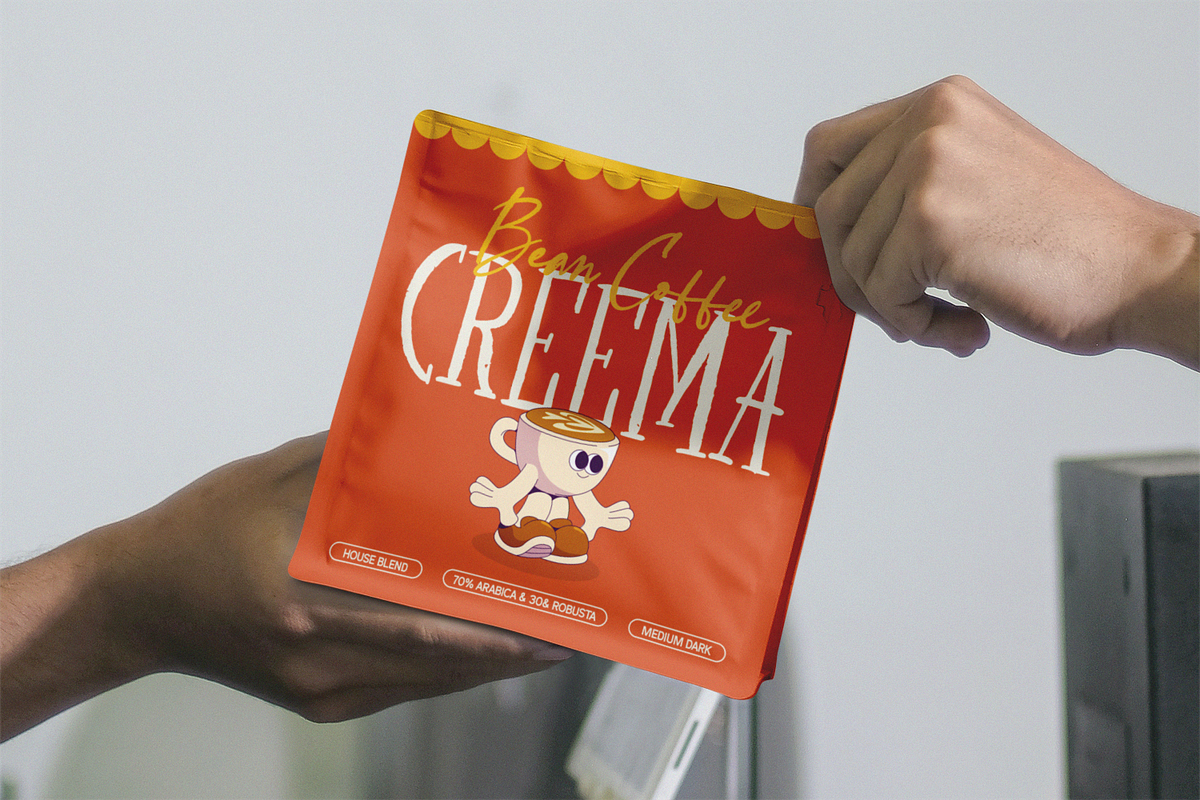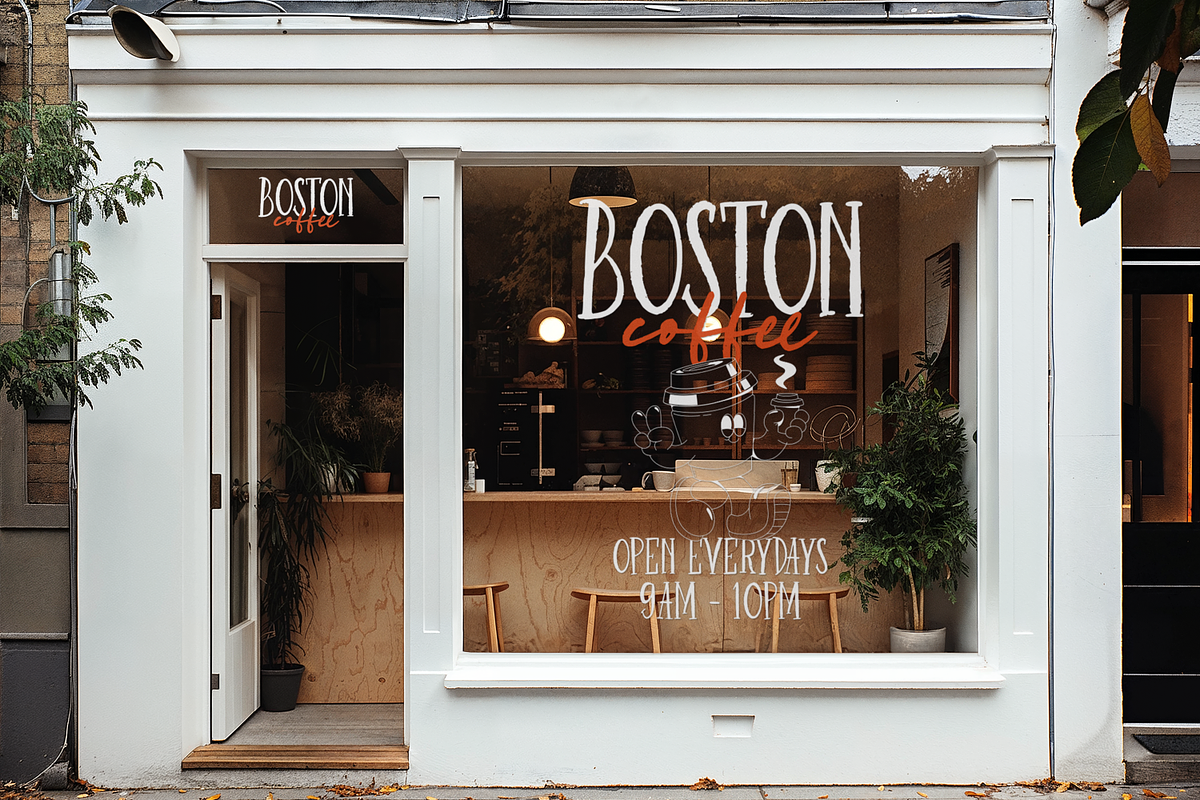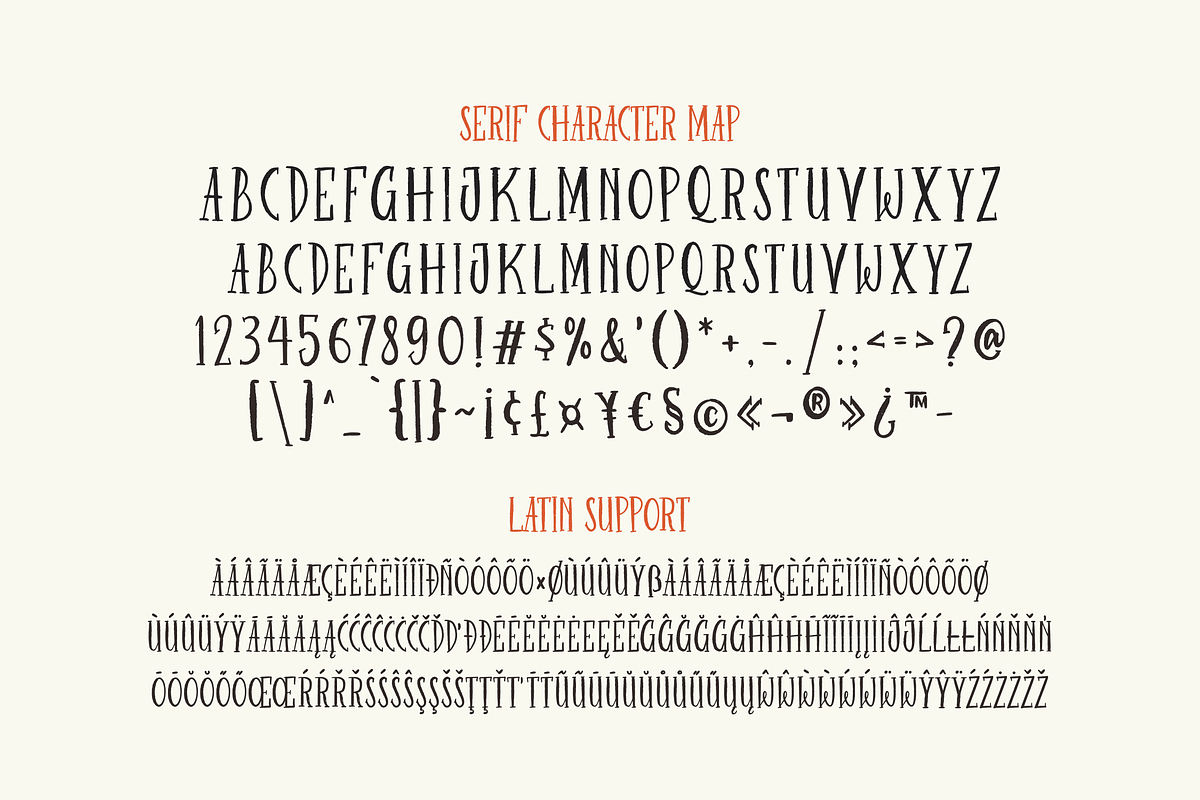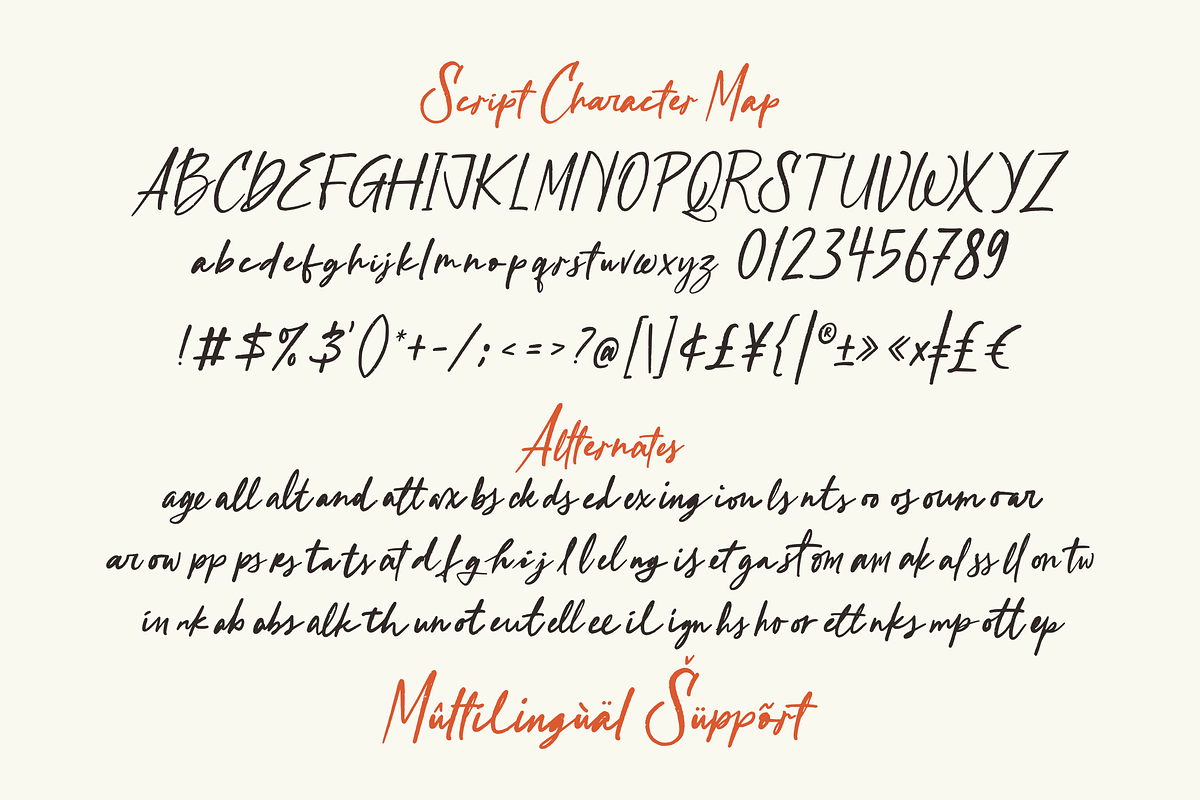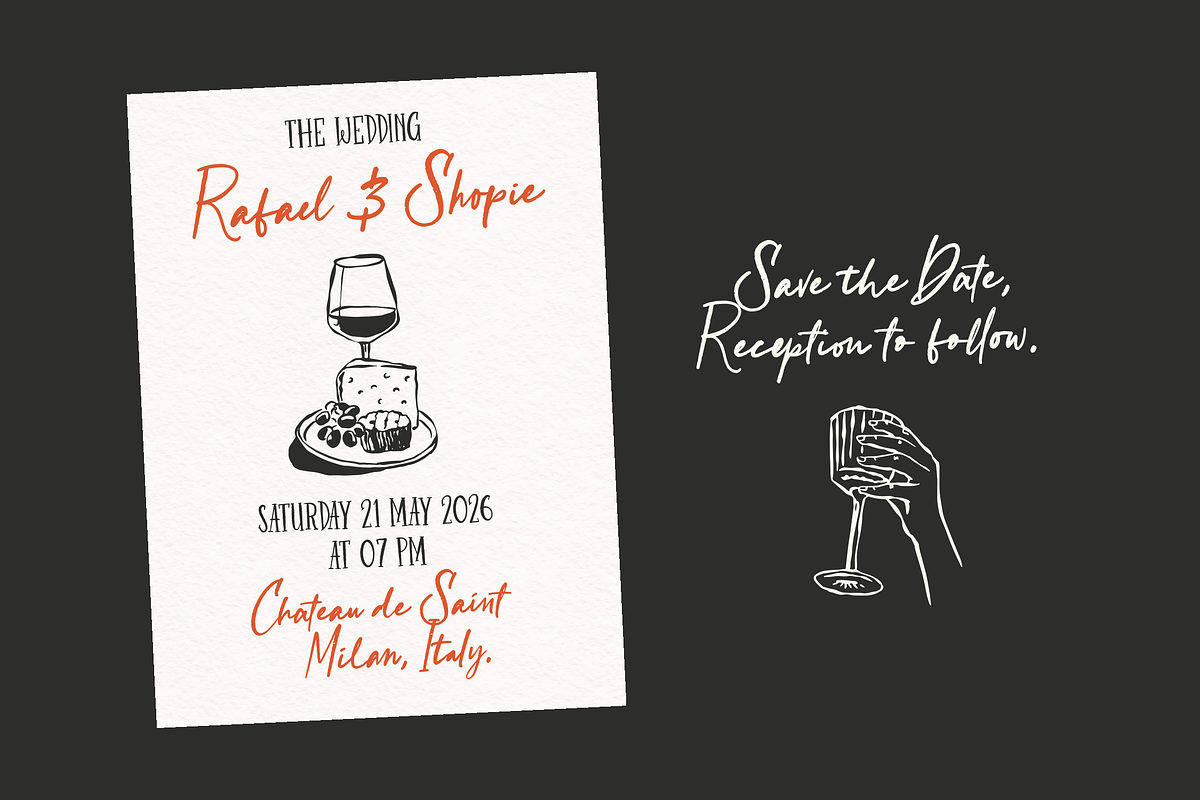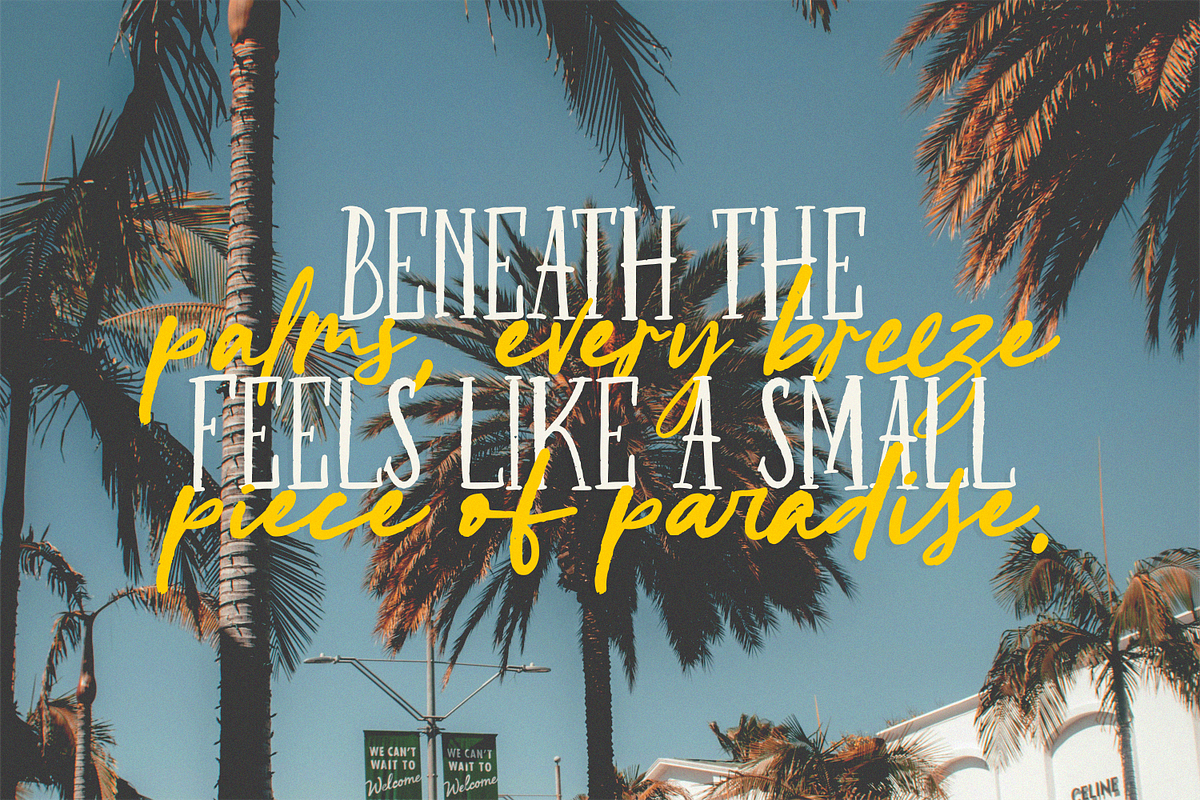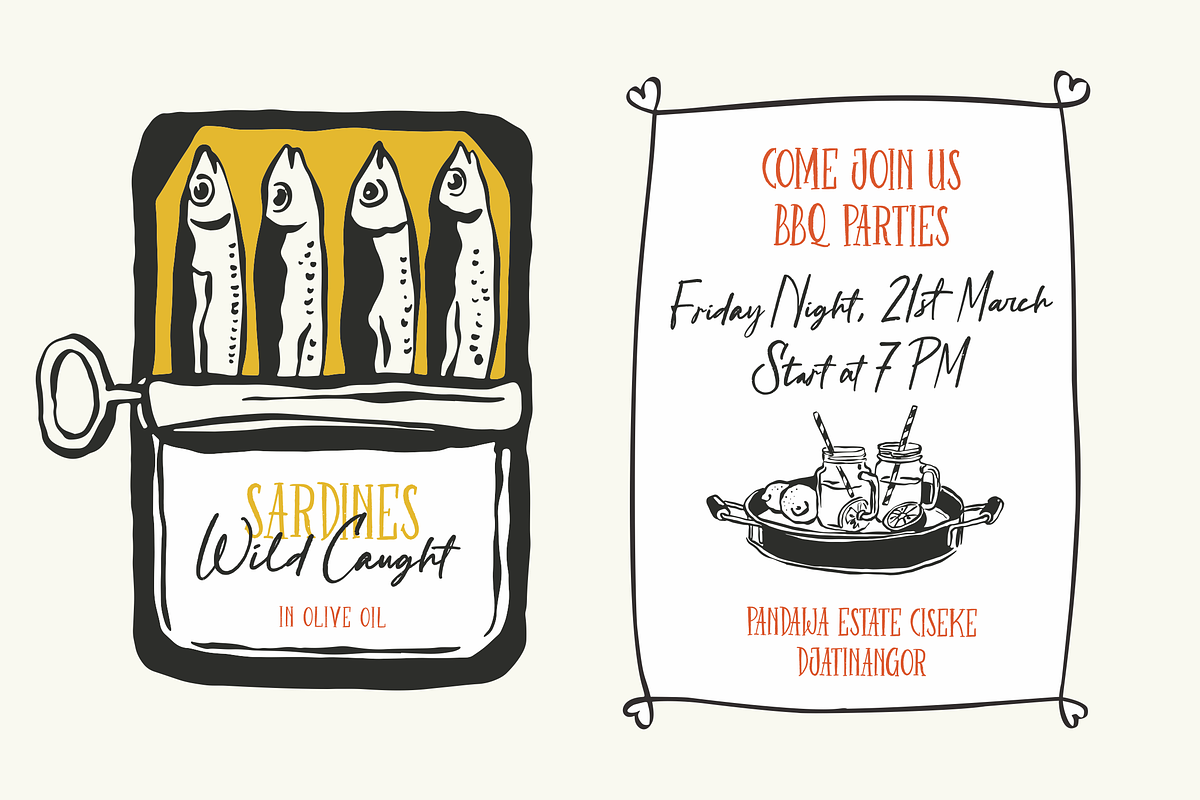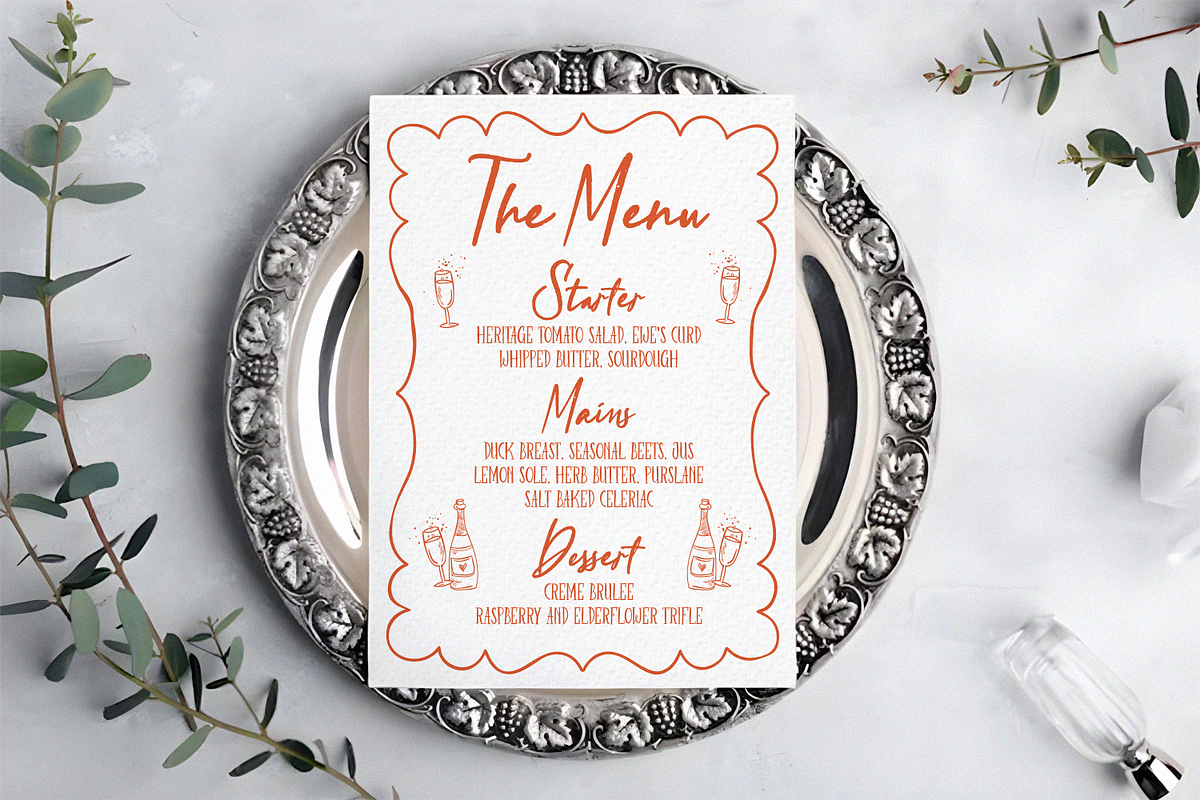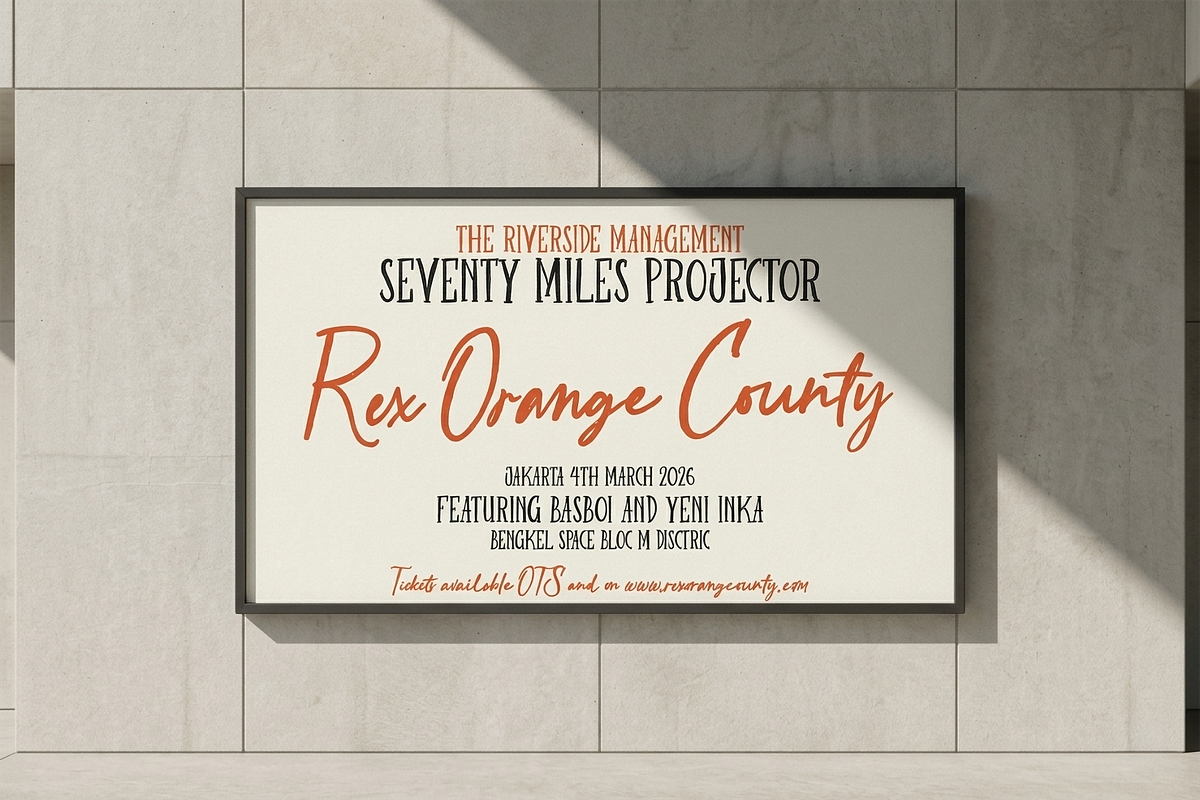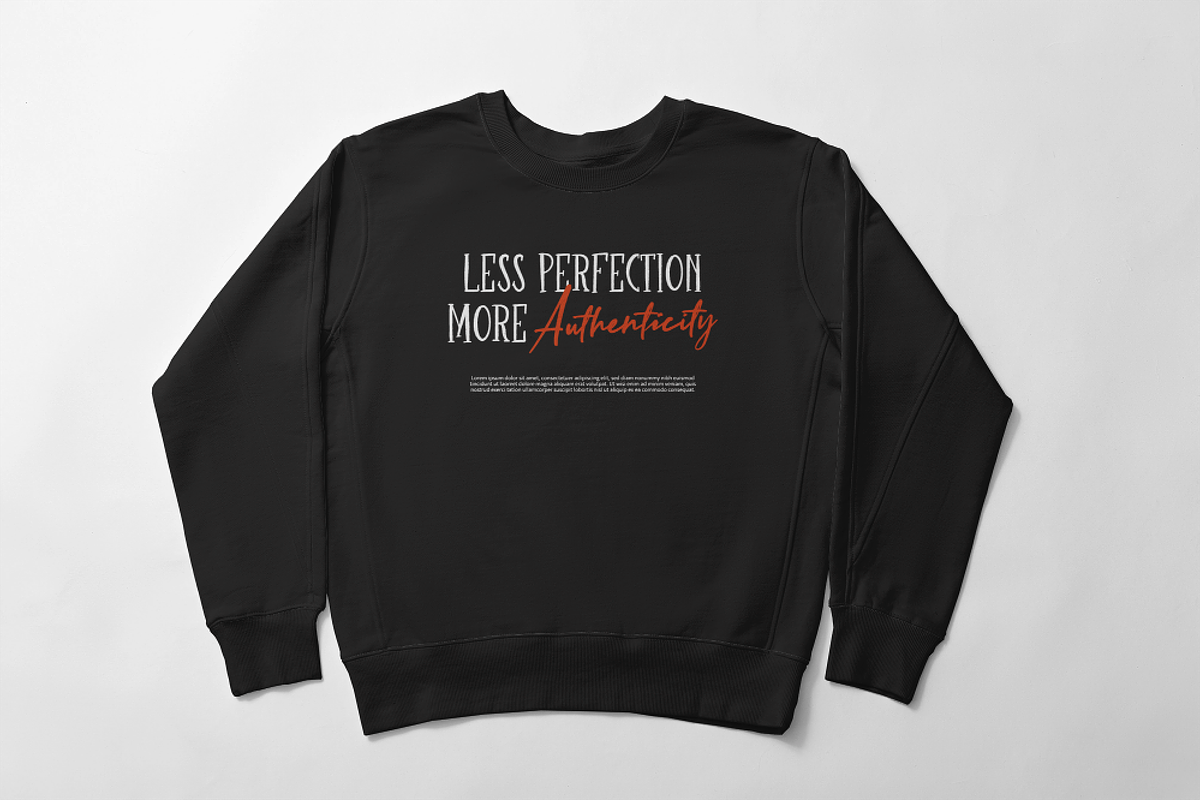
Autumn in Philadelphia Font Duo
Looking for a Handcrafted Font Duo for Rustic Branding, Café Logos, and Artisan Packaging?
Meet Autumn in Philadelphia, a handcrafted script and serif font duo made for warm branding, food packaging, wedding invitations, product labels, and artisan visuals.
With an organic handwritten script and a rustic vintage serif, this font pairing brings warmth, nostalgia, and handmade character into your typography.
Perfect for designs that need to feel cozy, authentic, story-driven, and timeless.
Best Used For
Café logos and coffee shop branding
Artisan packaging and product labels
Rustic branding and handmade business identity
Food packaging and restaurant menus
Cookbook covers and recipe cards
Farmers' market labels and organic products
Wedding invitations and romantic stationery
Quote posters and editorial layouts
Apparel graphics and handmade merchandise
Boho, cottagecore, and farmhouse-inspired designs
Boutique branding and creative studio visuals
Social media graphics with warm vintage style
Behind the Design
Autumn in Philadelphia combines two complementary styles in one beautiful font duo: an expressive handwritten script and a quirky rustic serif.
The script adds warmth, movement, and personal charm, while the tall vintage serif brings structure, readability, and nostalgic character.
Together, they create a ready-made font pairing that works beautifully for designers, café owners, wedding stationers, food brands, handmade businesses, and creative studios that need typography with an authentic handcrafted feel.
Handcrafted script and serif font duo
Organic handwritten script style
Rustic vintage serif letterforms
Built-in font pairing for easy design
Uppercase and lowercase letters
Numerals and punctuation
OpenType features and PUA Encoded
Bring warmth, nostalgia, and handcrafted charm to your next logo, packaging, invitation, menu, or editorial project with Autumn in Philadelphia.